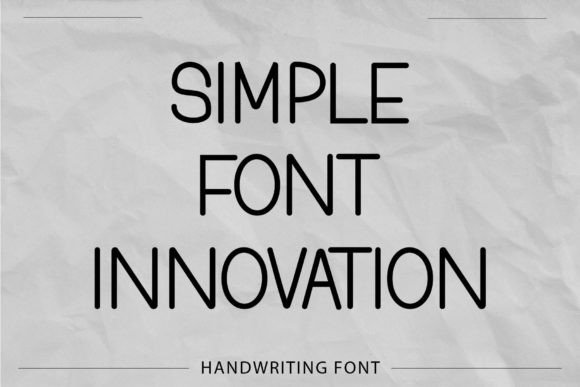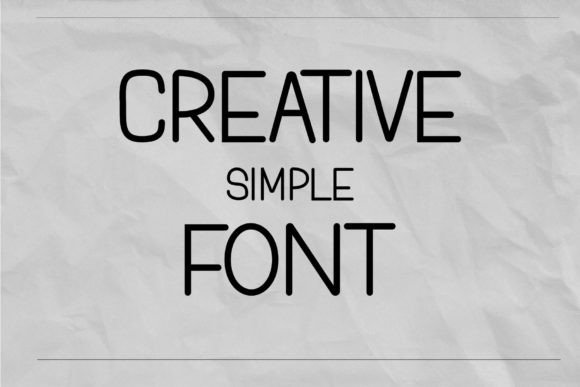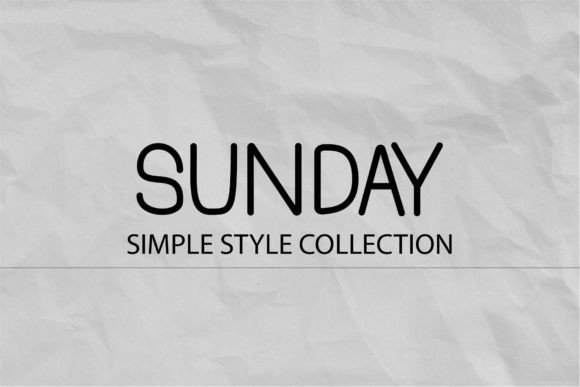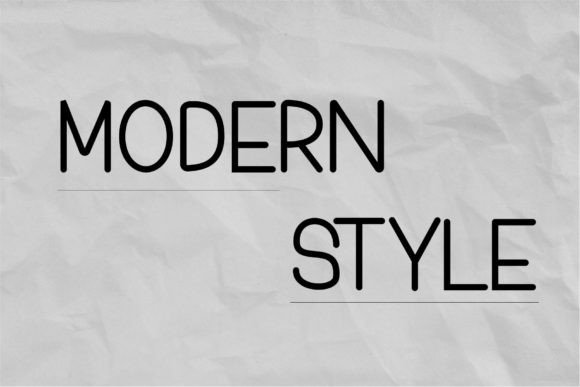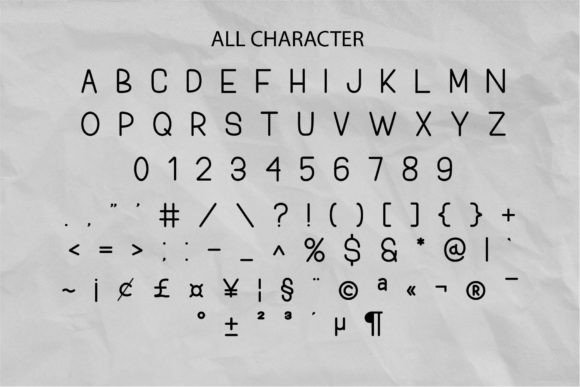
Introduction to Simple Stylist Font
Simple Stylist is a fun, adaptable, and cool display font.
No matter the topic, this font will be an incredible asset to your fontsโ library, as it has the potential to elevate any creation Add this lovely freebie to your creations and take your designs to the next level.
Key Features of Simple Stylist Font
Why Choose Simple Stylist Font?
Simple Stylist Font offers exceptional quality and versatility, making it a valuable addition to your design toolkit. Whether you’re creating for personal projects or commercial use, Simple Stylist Font delivers professional results.